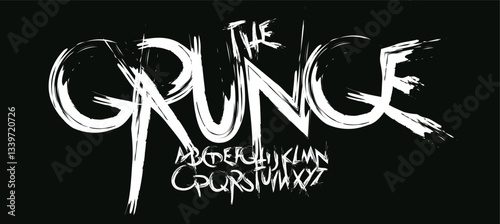
Grunge brush font with rough, distressed strokes and an edgy, chaotic look. Perfect for punk rock cover, street art, rebellious logo and headline. Bold urban typography. Vector typeset